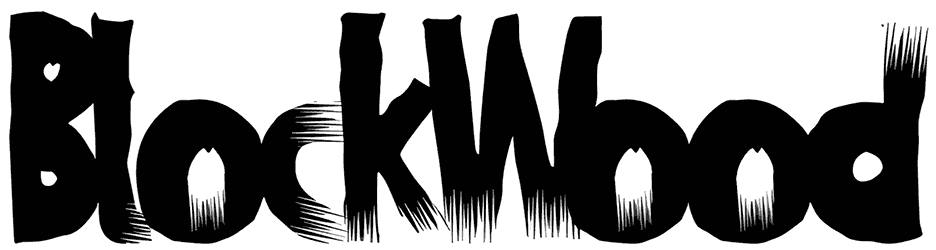
BlockWood Font
A glamorous horror font, such as BlockWood can be your faithful assistant in the realm of animation posters, book covers, packaging, logos, or stickers, and level up the quality of all of your creative ideas.
This brush font comes with bold and chunky characters, so it leads to a sense of fear, dynamism, or anxiety. Don’t forget to check our library for daily updates and access to a limitless number of various fonts.